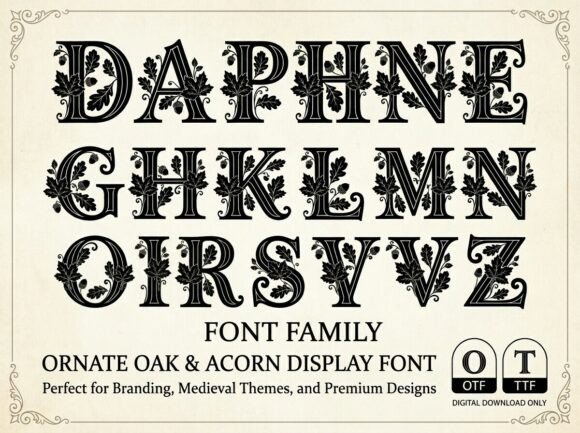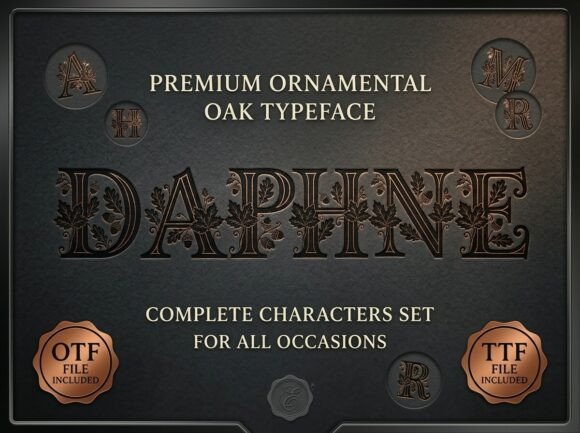
Introducing Daphne Font: A Stunning Decorative Display Font
Are you tired of using the same old fonts for your designs? Look no further! Daphne Font is a breathtaking decorative display font that is sure to turn heads. With its unique artistic elements and strong visual personality, this font is perfect for creators who want to break away from the ordinary and make a statement.
What Makes Daphne Font Special?
Daphne Font is a versatile font that is designed to be the center of attention. Its stunning decorative elements make it ideal for bold headlines, artistic logos, and creative packaging. Whether you’re a designer, crafty DIY enthusiast, or entrepreneur, this font is sure to elevate your brand and make it stand out from the crowd.
⚠️ IMPORTANT NOTE BEFORE PURCHASE: Daphne Font is an ALL-CAPS (Uppercase Only) display typeface. This means that it does not include lowercase letters. It is specifically designed for high-impact headlines, logos, and decorative initials where every letter is a work of art.
Use Cases for Daphne Font
Daphne Font is perfect for a variety of design projects, including:
- Headlines and Titles: Use Daphne Font to create eye-catching headlines and titles that grab attention.
- Logos and Branding: Create a unique and memorable logo for your brand with Daphne Font.
- Packaging Design: Add a touch of elegance and sophistication to your packaging design with Daphne Font.
- Signage and Displays: Use Daphne Font to create stunning signage and displays that showcase your message.
Benefits of Using Daphne Font
By using Daphne Font, you’ll enjoy several benefits, including:
- Unique and Creative Designs: Daphne Font offers a fresh and creative take on traditional fonts, allowing you to create unique and eye-catching designs.
- Professional and Polished Finish: Despite its decorative nature, Daphne Font maintains a professional and polished finish, making it perfect for businesses and brands.
Tips for Using Daphne Font
To get the most out of Daphne Font, here are a few tips:
- Use it Sparingly: Due to its decorative nature, it’s best to use Daphne Font sparingly to avoid overwhelming your design.
- Pair it with a Simple Font: Pair Daphne Font with a simple font to create contrast and make your design more readable.
- Experiment with Colors and Textures: Have fun experimenting with different colors and textures to make your design truly unique.